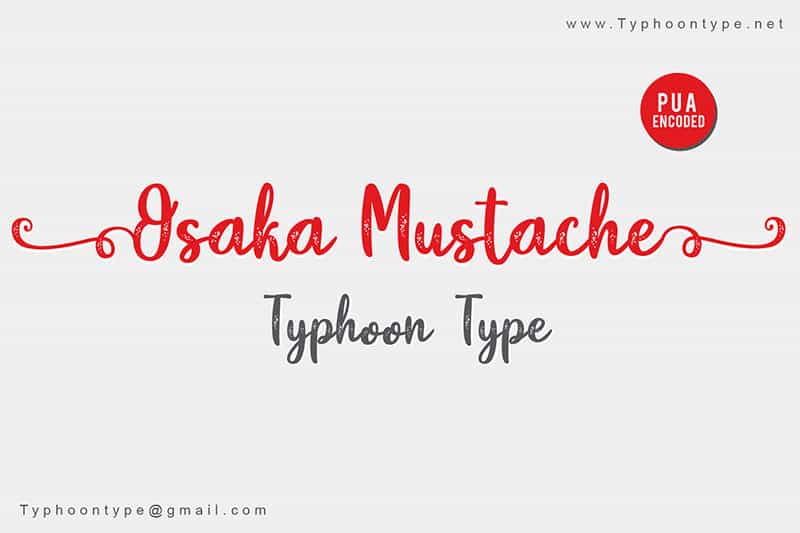
Osaka mustache – This font perfect for logos, name tag, advertising, product packaging, clothing, social media & greeting cards. Type ( before word to get beginning swash and Type ) after word to get the ending swash.